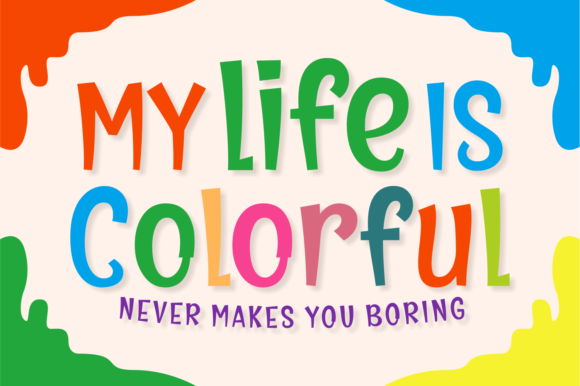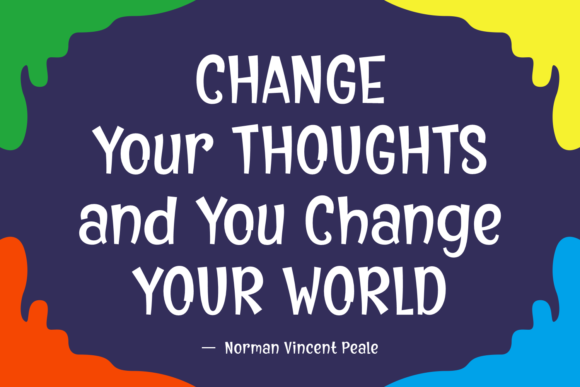
Introducing Game Changer Font: The Ultimate Display Font for Designers and Crafters
Are you tired of using the same old fonts for your digital designs, presentations, and crafts? Look no further! Game Changer Font is here to revolutionize your creative projects with its charming and quirky display style. This versatile font is perfect for a wide range of applications, from digital design and presentations to crafting and making greeting cards.
What Makes Game Changer Font So Special?
Game Changer Font is a unique and eye-catching display font that is sure to make your projects stand out. Its charming and quirky style is perfect for adding a touch of personality to your designs. Whether you’re creating a digital project, a presentation, or a handmade craft, this font is sure to become your go-to choice.
Game Changer Font is a designer’s dream come true. Its versatility and charm make it perfect for a wide range of projects, including:
- Digital design: Use Game Changer Font to add a touch of personality to your website, social media graphics, and other digital projects.
- Presentations: Make your presentations stand out with this unique and eye-catching font.
- Crafts: Add a touch of charm to your handmade crafts, such as greeting cards, scrapbooking, and other paper crafts.
Why Choose Game Changer Font?
There are many reasons why Game Changer Font should be your top choice for your next project. Here are just a few:
- Unique style: Game Changer Font has a one-of-a-kind style that is sure to make your projects stand out.
- Versatility: This font is perfect for a wide range of projects, from digital design to crafting.
Tips for Using Game Changer Font
Here are a few tips for getting the most out of Game Changer Font:
- Use it sparingly: Game Changer Font is a display font, so it’s best to use it sparingly to add emphasis to your projects.
- Pair it with other fonts: Experiment with pairing Game Changer Font with other fonts to create a unique and eye-catching look.
- Experiment with colors: Game Changer Font looks great in a variety of colors, so don’t be afraid to experiment and find the perfect color for your project.
| Author | Dito (7NTypes) |
Game Changer Font is a charming and quirky display font that is sure to become your go-to choice for all your creative projects. Its unique style, versatility, and ease of use make it perfect for designers and crafters of all skill levels. Whether you’re working on a digital project, a presentation, or a handmade craft, Game Changer Font is the perfect choice. So why wait? Download Game Changer Font today and take your projects to the next level!